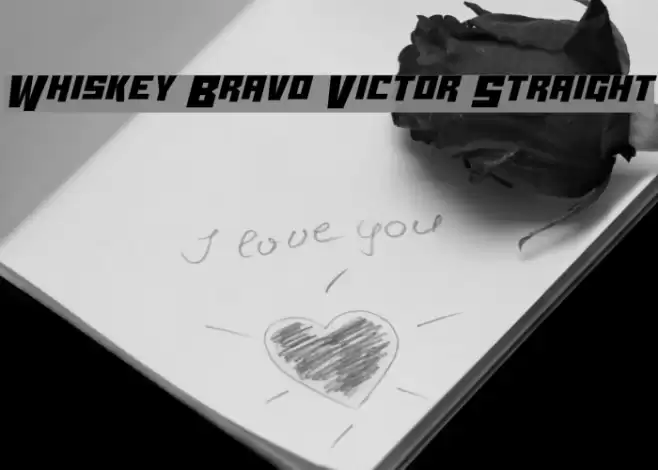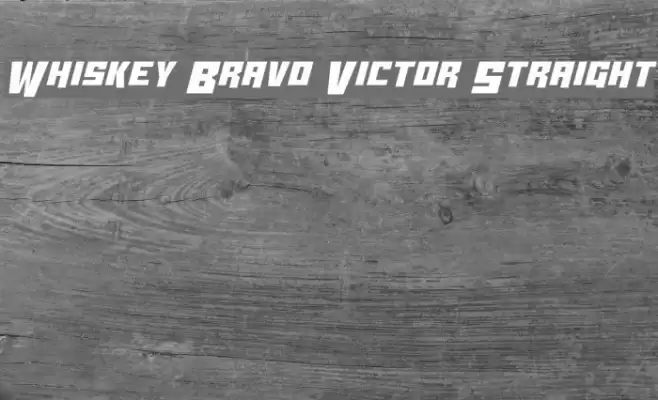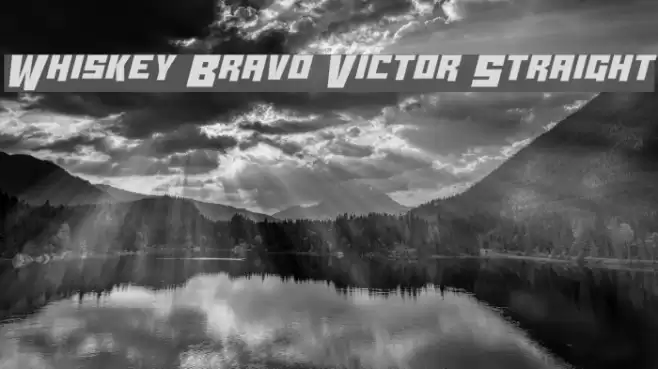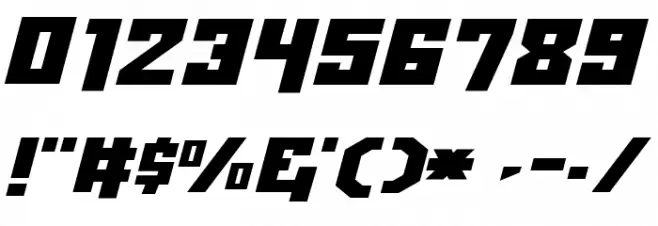
Whiskey Bravo Victor Straight Font
Whiskey Bravo Victor Straight Description
This font features a bold, angular design with a strong geometric influence. The characters are sharply defined with a dynamic slant, giving a sense of motion and energy. The uppercase letters are particularly striking, with a consistent height and width that create a uniform appearance. The numbers and special characters maintain the same bold style, ensuring cohesion across all elements. This font's unique style makes it ideal for projects that require a modern and impactful look. The sharp angles and bold strokes make it stand out, while the consistent slant adds a touch of sophistication.
A bold, angular font with a dynamic slant and geometric design from Uncategorized fonts.
- Proposed Projects: Ideal for sports branding, dynamic posters, video game titles, and modern advertising campaigns.